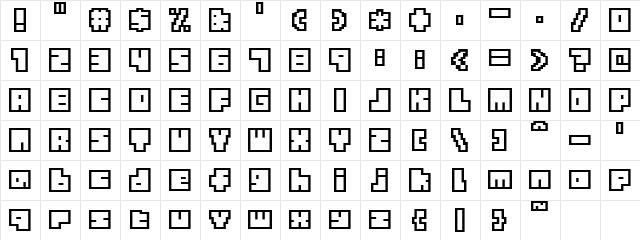
Tiny BoxBitA10 Regular
Design Context for Tiny BoxBitA10 Typeface
Tiny BoxBitA10 takes a measured approach to typography — its balanced proportions and neutral character make it a reliable workhorse for both digital and print work.